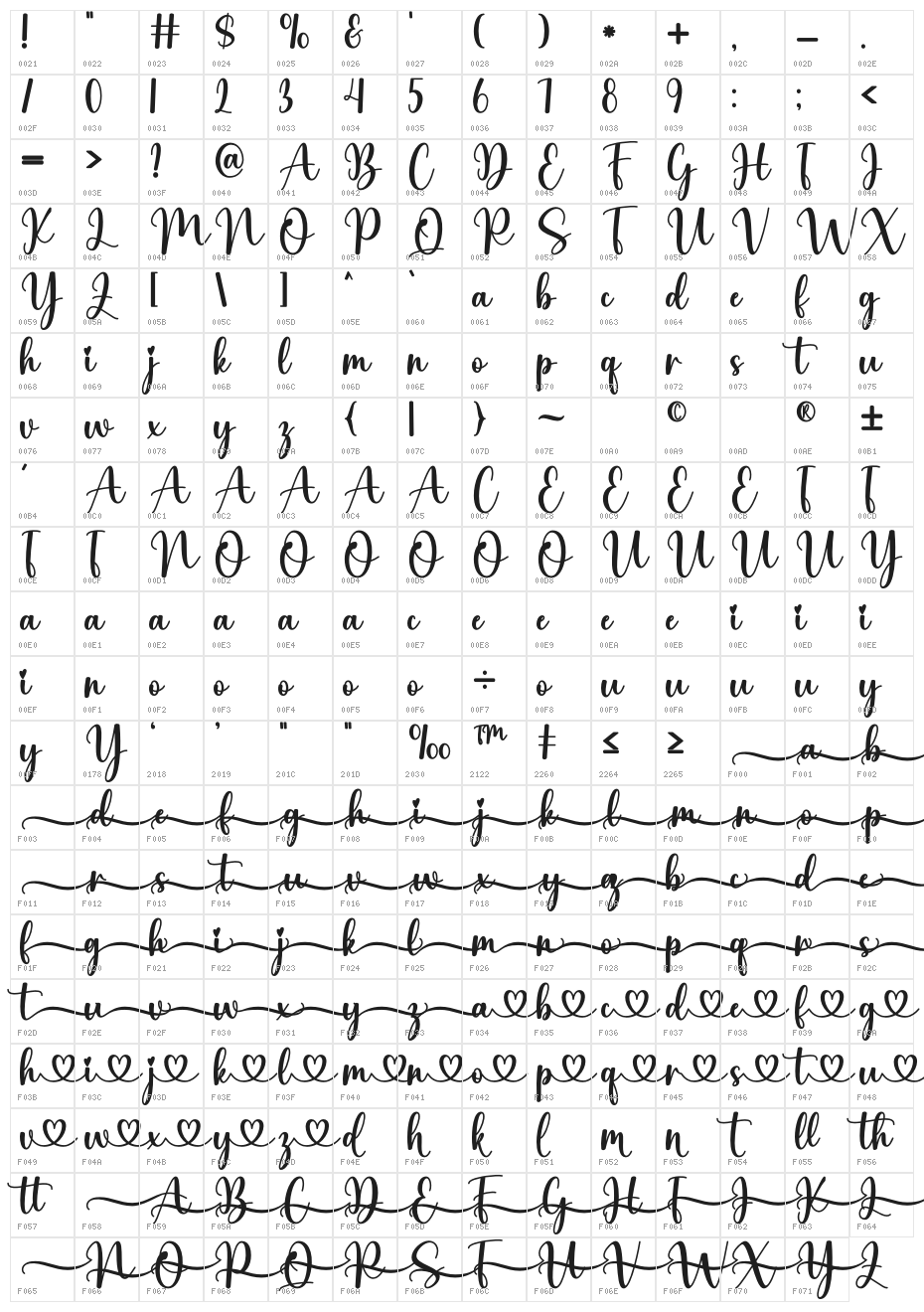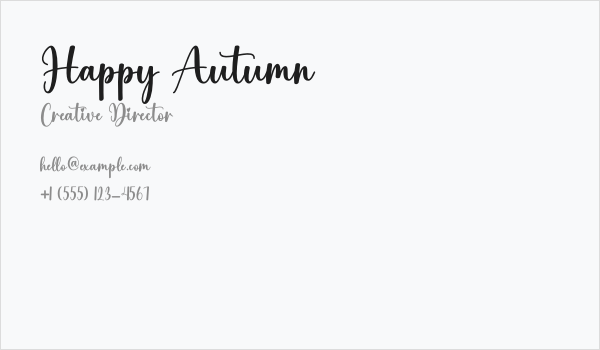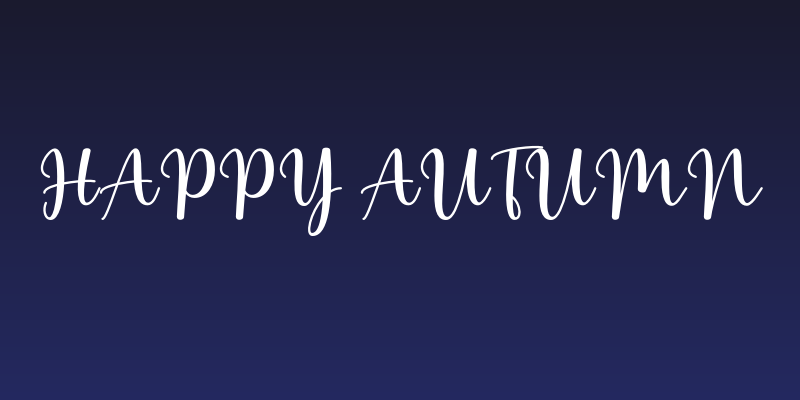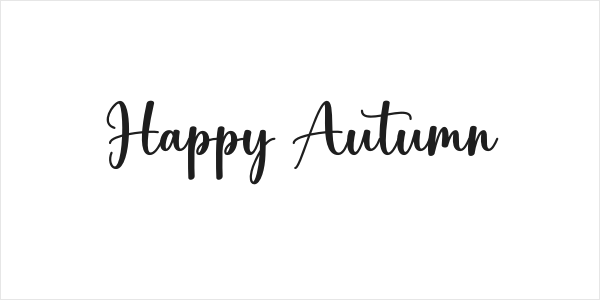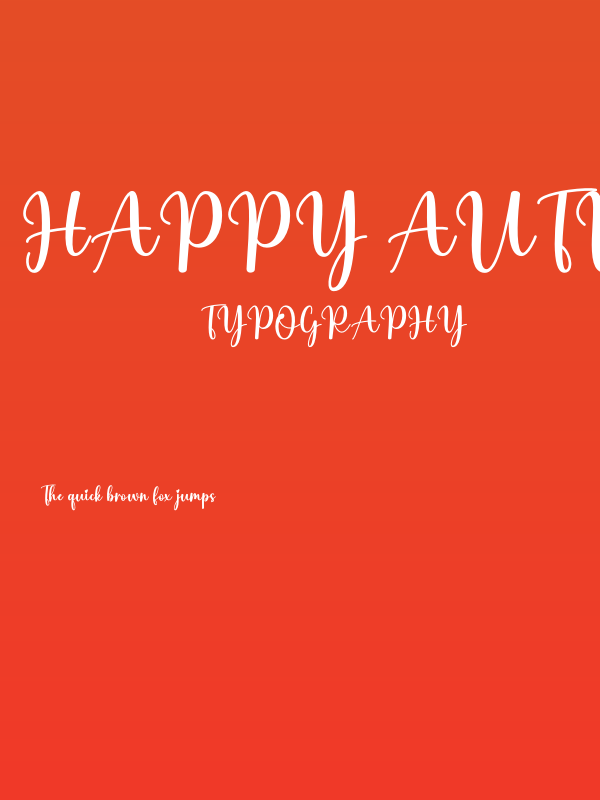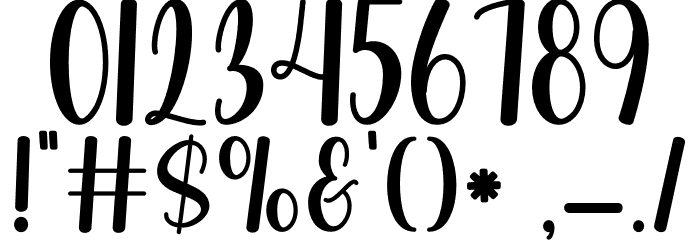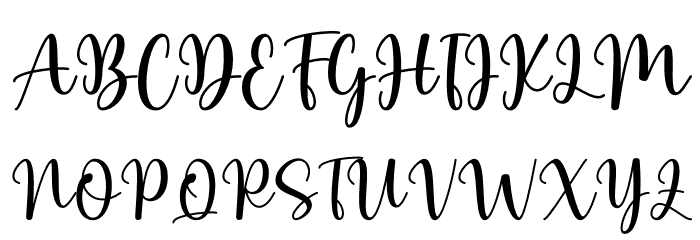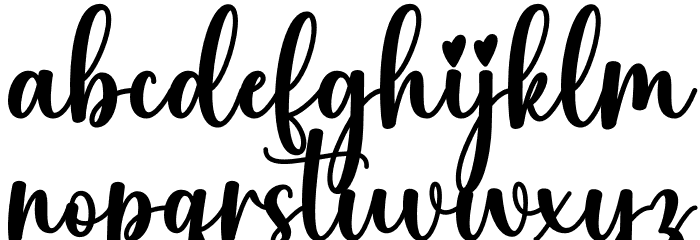
Happy Autumn Font
Happy Autumn Description
This font features a playful and whimsical script style with a handwritten appearance. The uppercase letters are elegant and slightly slanted, adding a touch of sophistication. The lowercase letters are more bold and rounded, with some characters featuring unique heart-shaped accents, enhancing its charm. Numbers and special characters maintain the playful theme, with consistent stroke thickness and a smooth flow. The overall design is cohesive, making it suitable for creative and informal projects.
| Proposed Projects | Ideal for greeting cards, wedding invitations, playful branding, and social media graphics. |